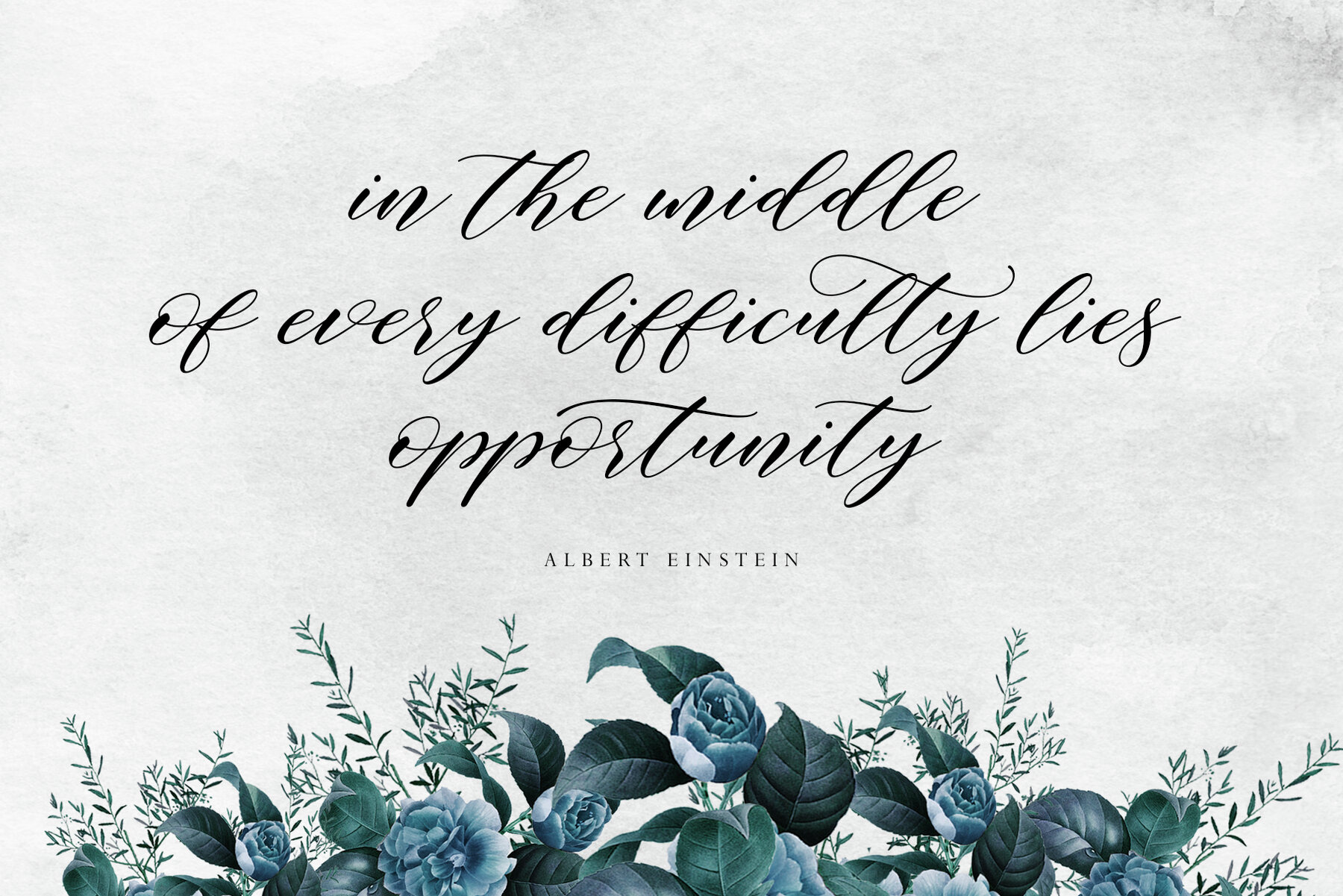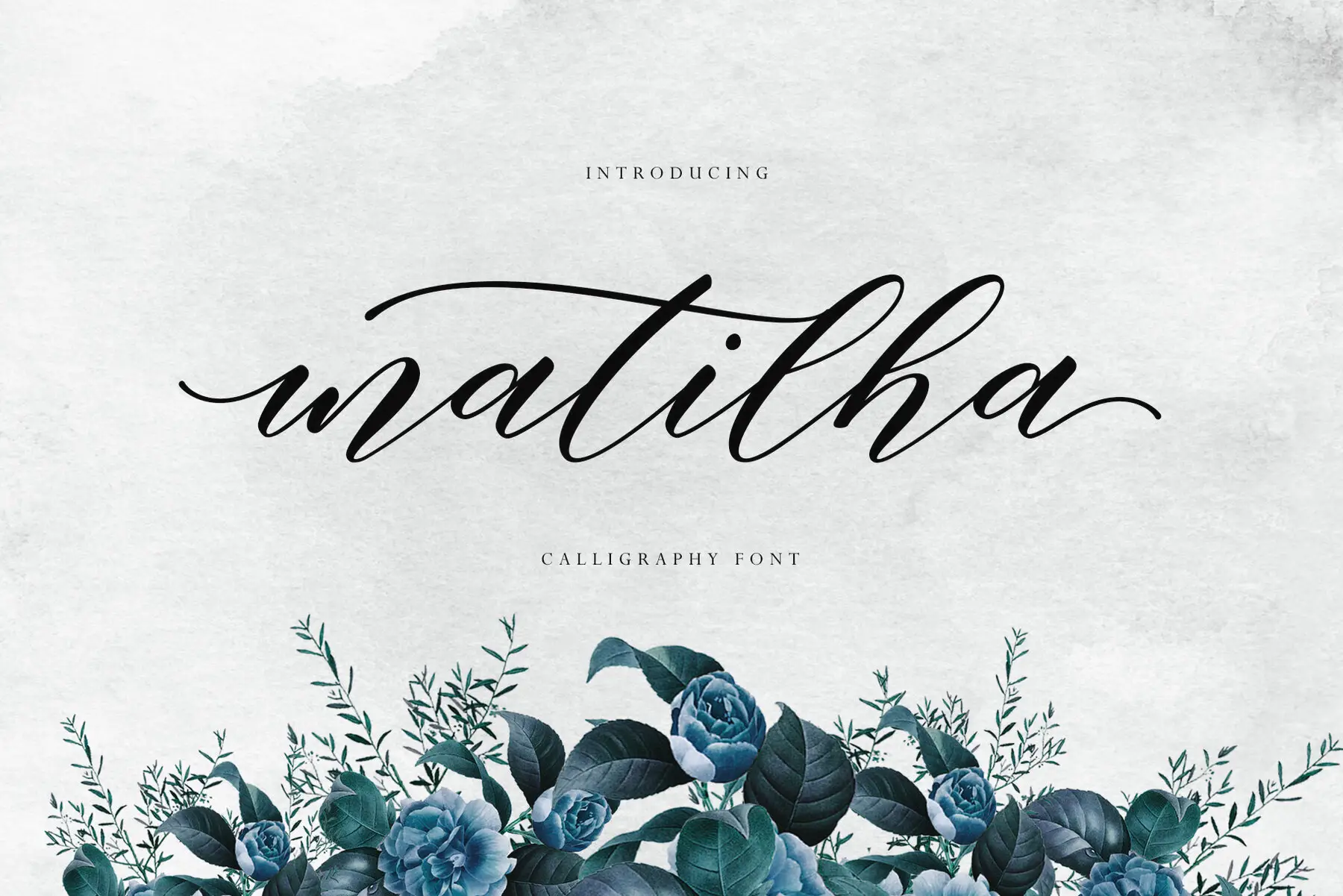
Matilha Script Font
Matilha Script
Embrace the elegance of Matilha Script, a modern calligraphy font that brings a touch of stylish sophistication to any project. Its soft, neat italic style exudes an effortless charm, making it a versatile choice for an array of design applications. Whether you're crafting a Cricut project, creating a captivating comic, or designing a distinctive logo, this font adds an air of refinement to your work.Matilha Script: Modern Calligraphy with Style